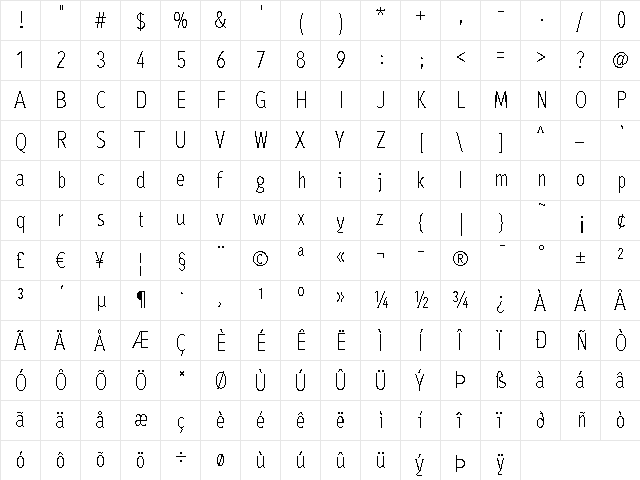
Ayumi Pro Light
| Foundry | Neil Summerour (Positype) |
| Designer | Neil Summerour (Positype) |
Design Context for Ayumi Pro Typeface
Ayumi Pro is a composed and adaptable typeface that performs quietly and consistently across a wide range of design contexts. The delicate stroke weight brings airiness and refinement to layouts.